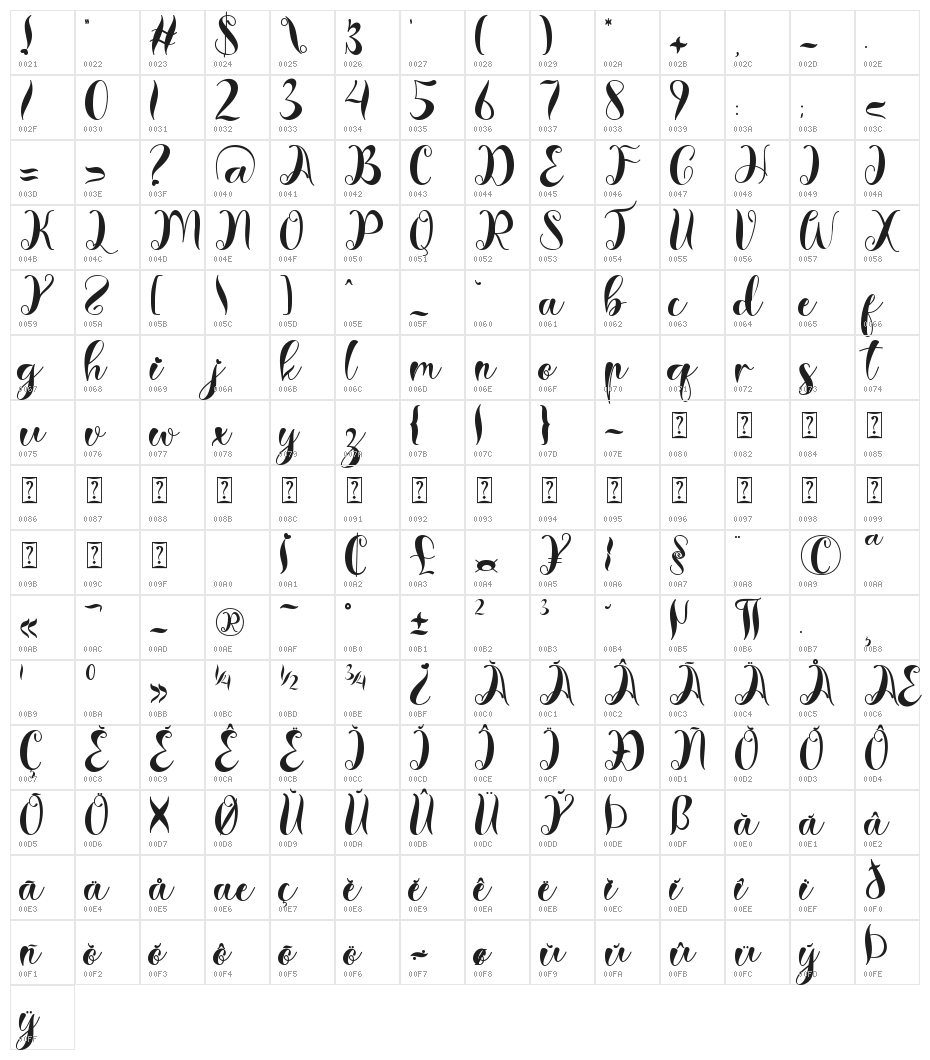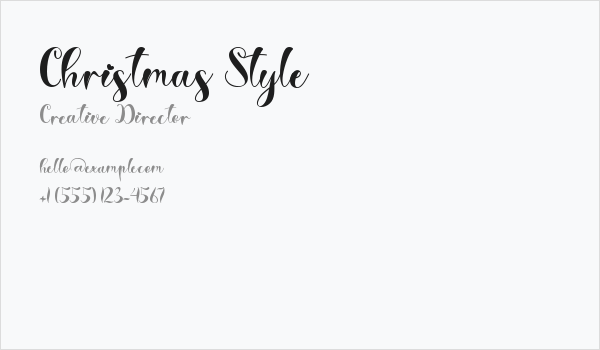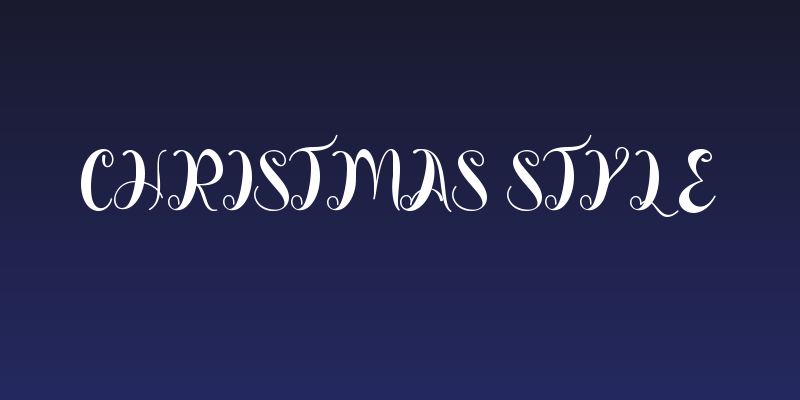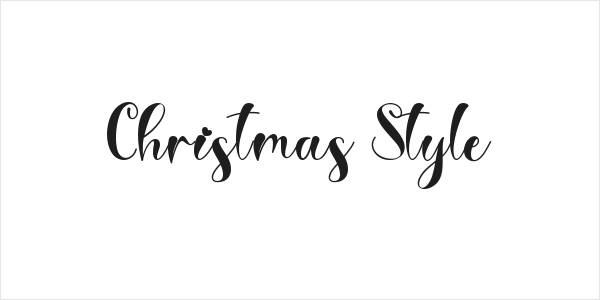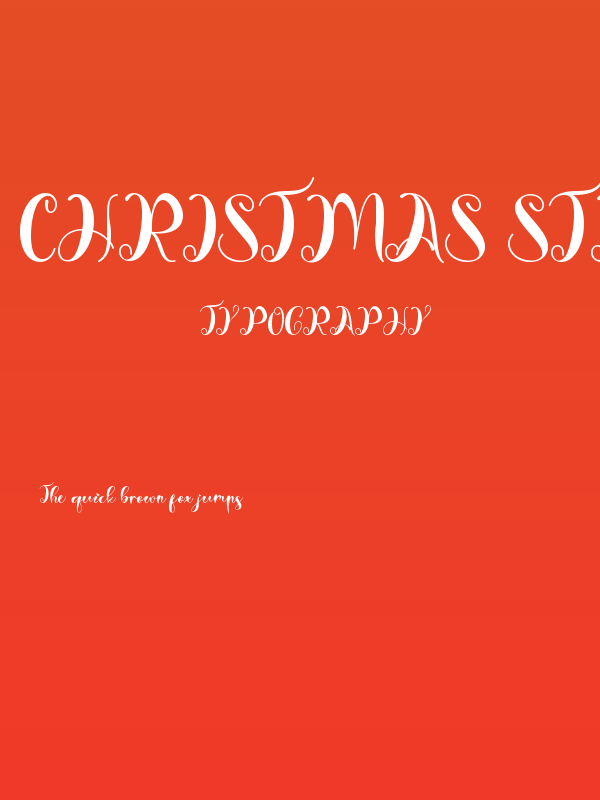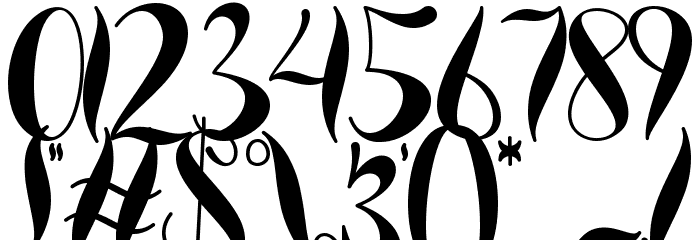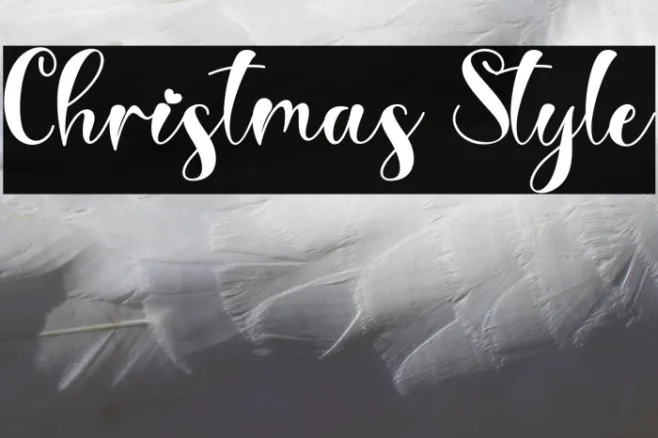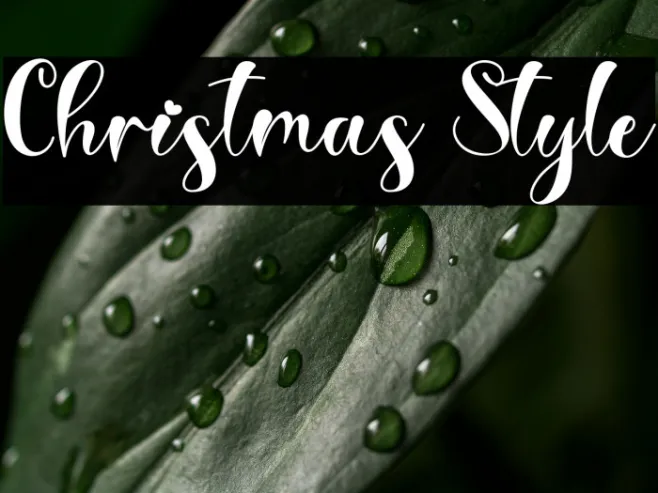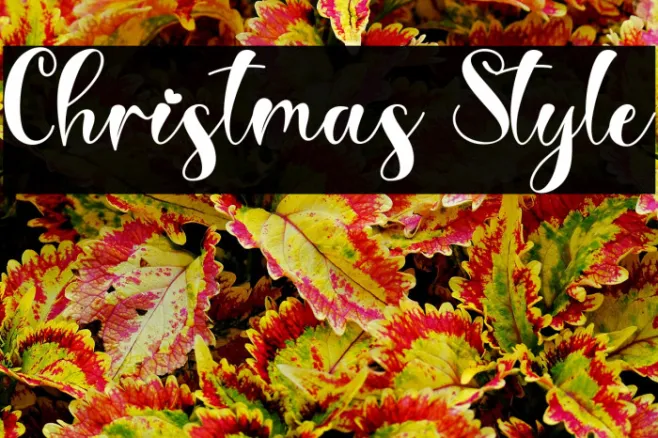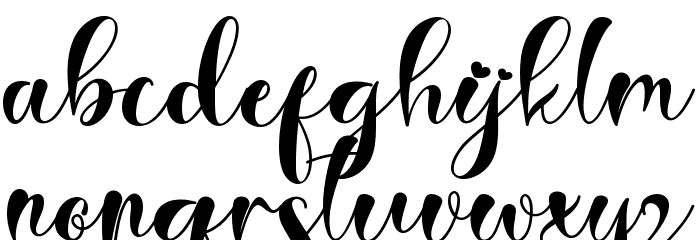
Christmas Style Font
Christmas Style Description
This font exudes a festive and elegant charm, perfect for holiday-themed designs. The letters are crafted with a flowing, cursive style that incorporates both thick and thin strokes, creating a dynamic and lively appearance. The uppercase letters are particularly ornate, featuring loops and swirls that add a touch of sophistication. The lowercase letters maintain a consistent style, with smooth curves and a slightly playful demeanor. Numbers and special characters are designed to match the overall aesthetic, ensuring a cohesive look across all text elements. This font is ideal for creating eye-catching headlines, invitations, and decorative elements that require a touch of elegance and festivity.
| Use Case | Headlines, Decorative elements |
| Proposed Projects | Holiday cards, festive invitations, seasonal advertisements, decorative signage. |